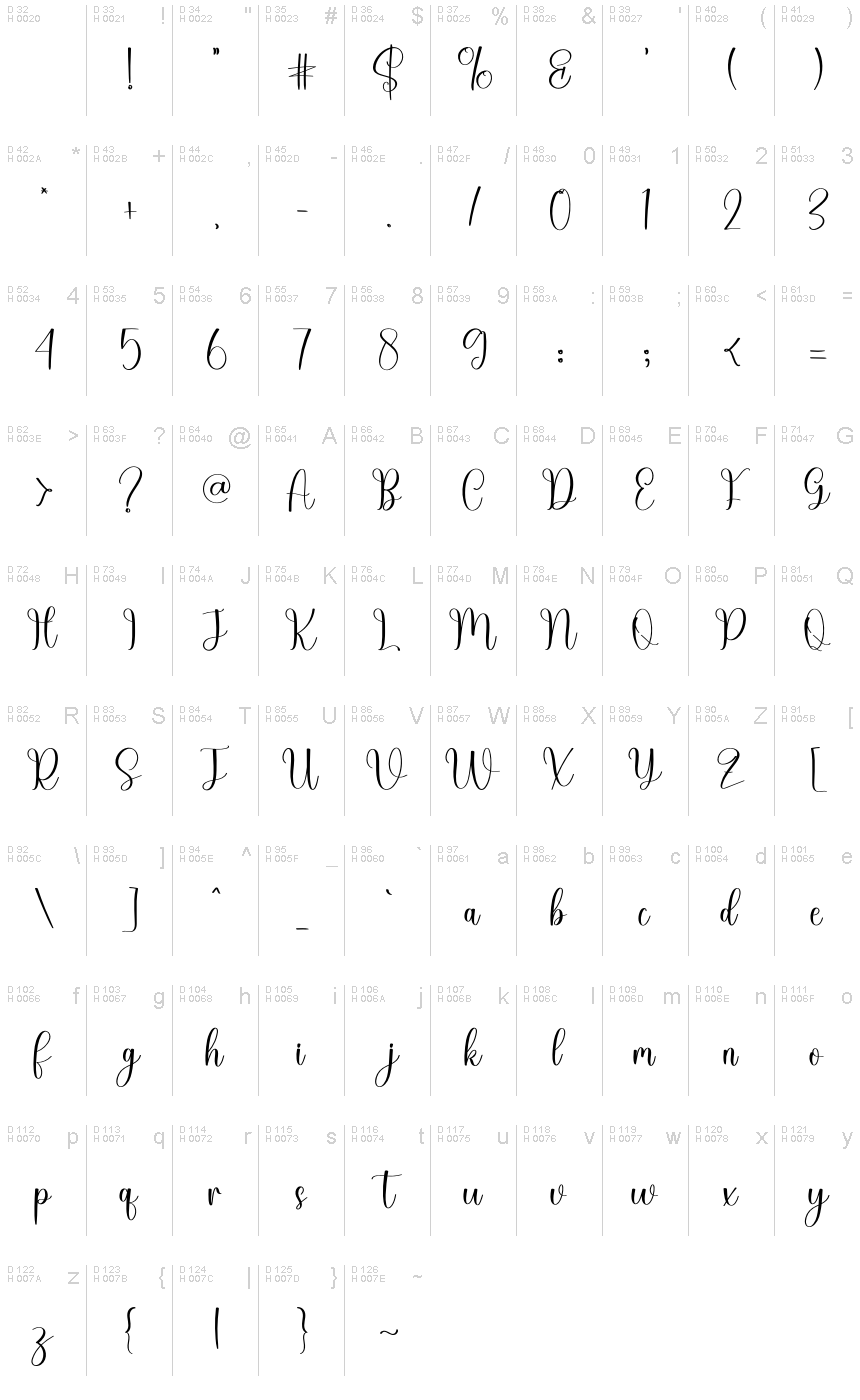
Hair
Hair font by FreshtypeINK is a contemporary handwritten free font. Its letters are sleek and elegant, both in style and width. They take their inspiration from handcraft lettering techniques to give the texture an authentic appearance. Hair is creative in nature with its light lines that have casual shapes finished with subtle curves.
Hair makes your designs look exceptional whether you embed it on invitations, greetings cards, stationery items, branding designs, social media posts, web pages, or advertisements. This light condensed font is effective for designing logo types as well as beautiful typography quotes. It shows consistency in blog images and magazines’ body texts too!